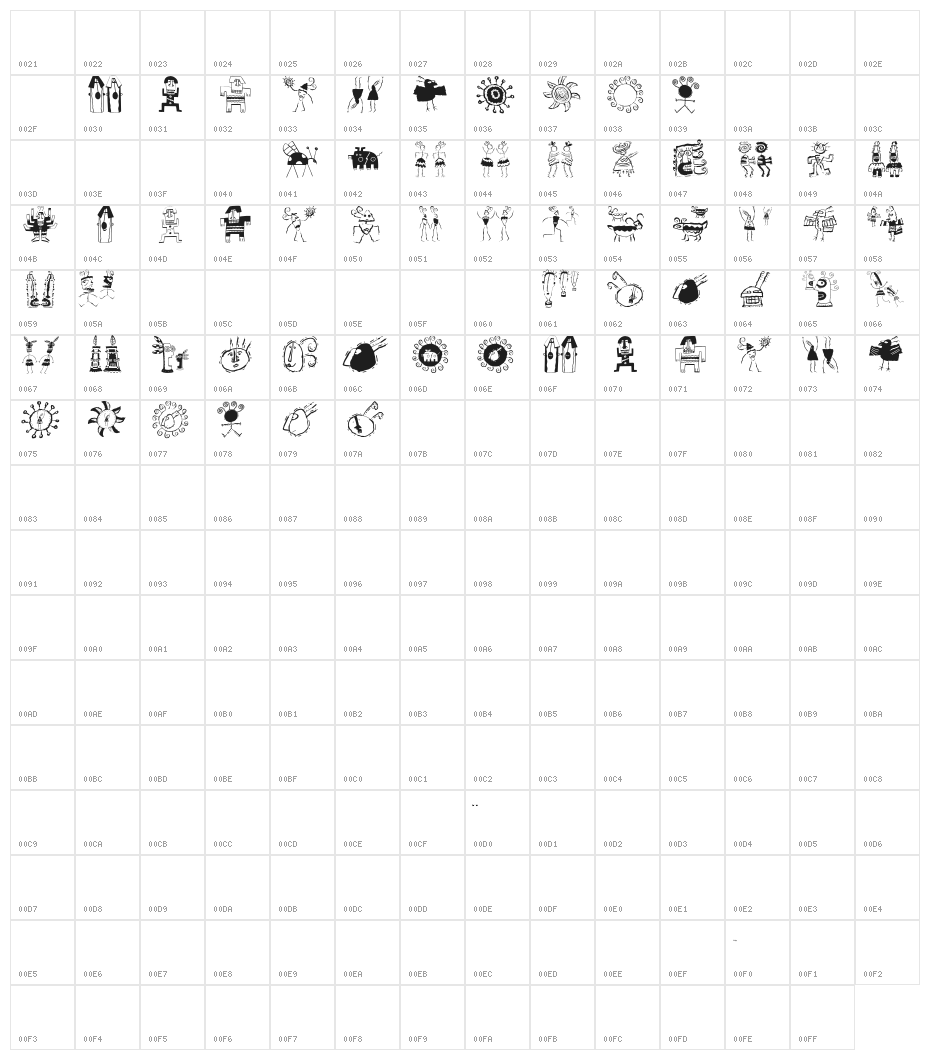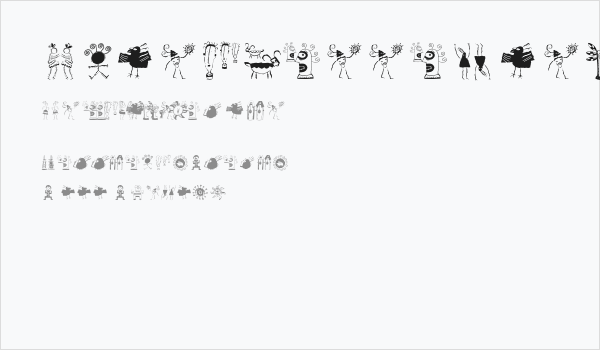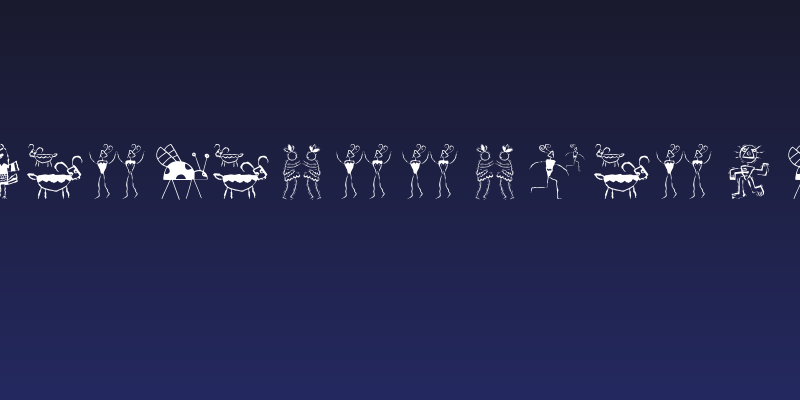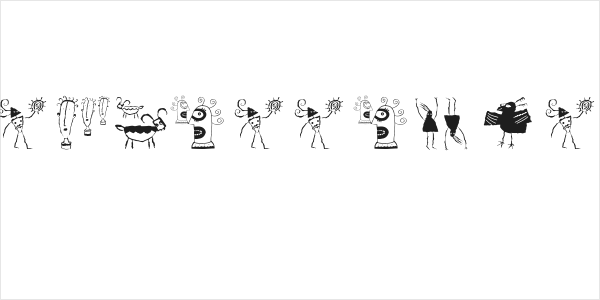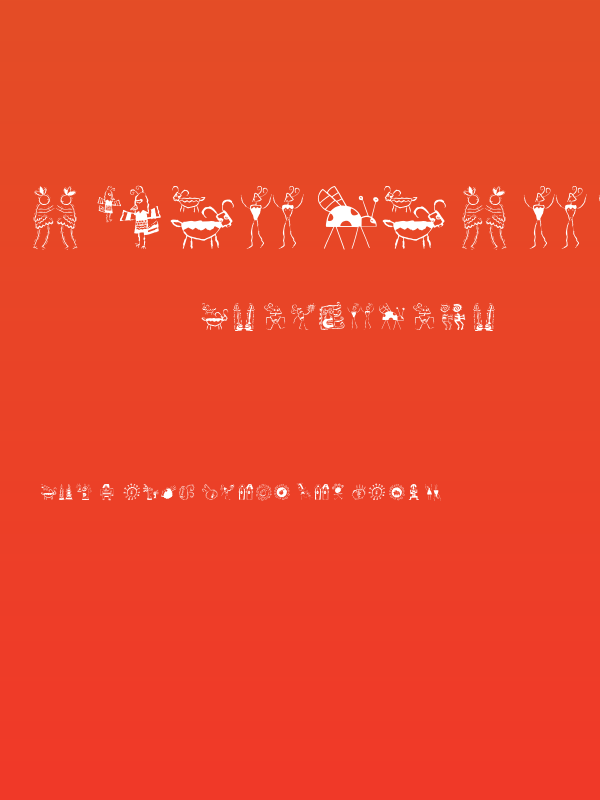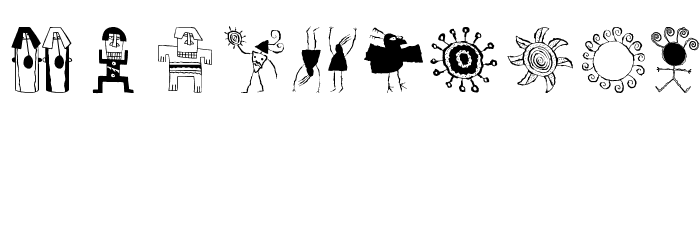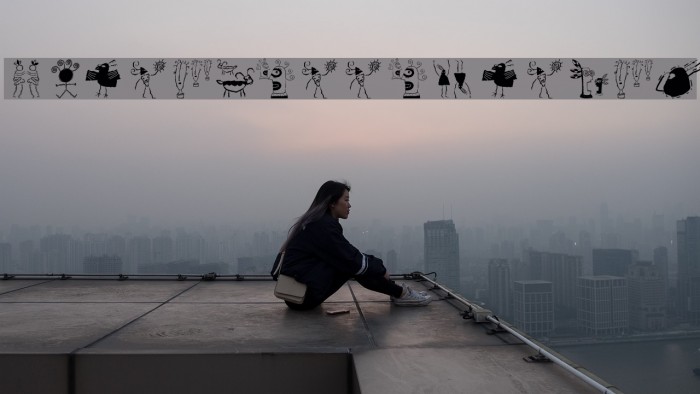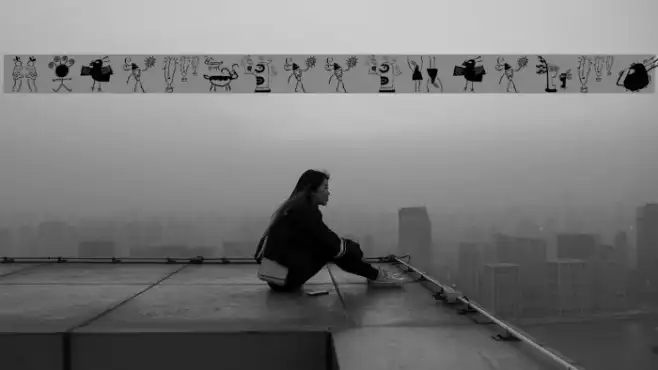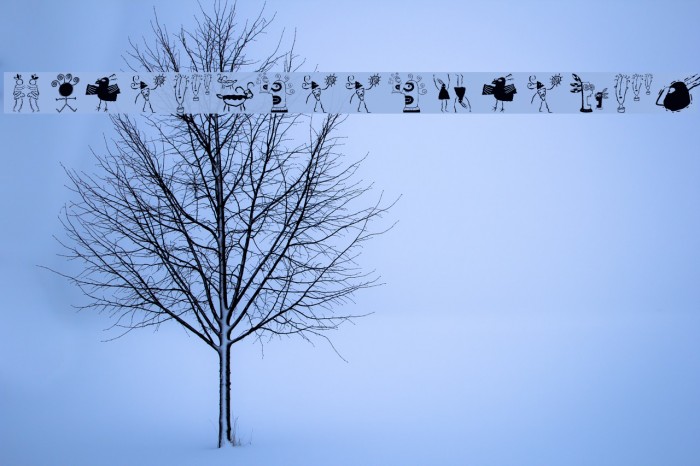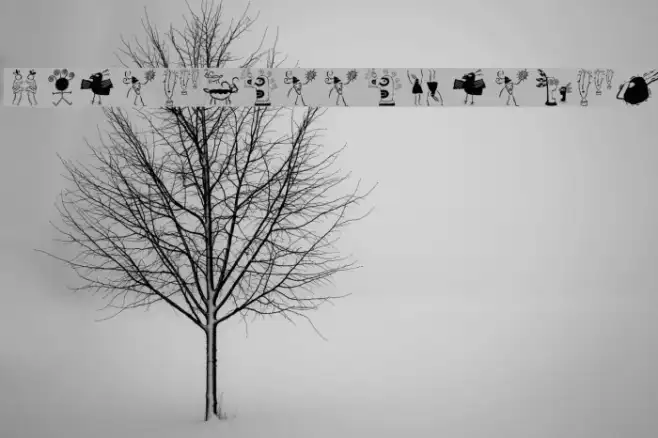
ExtraTerrestrial Font
ExtraTerrestrial Description
This font is a highly decorative and artistic representation, featuring whimsical and abstract characters that resemble extraterrestrial or alien-like figures. Each character is uniquely designed with intricate details, showcasing a playful and imaginative style. The characters are composed of various shapes and lines, creating a sense of movement and dynamism. This font is not meant for traditional text but rather for artistic and creative projects where a unique visual impact is desired. The overall appearance is bold and eye-catching, making it suitable for projects that require a standout design element.